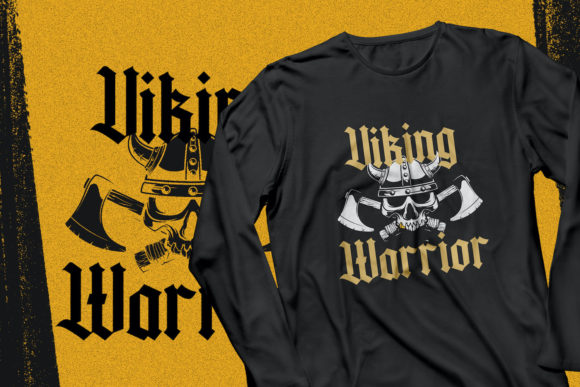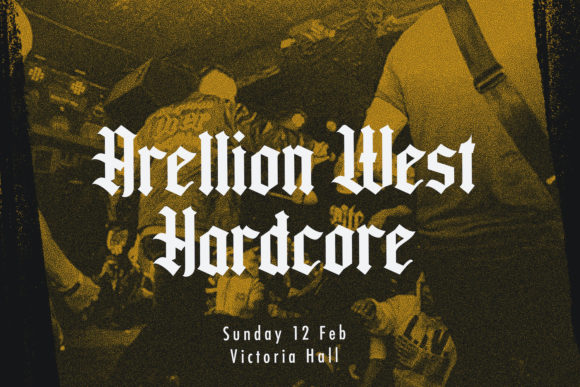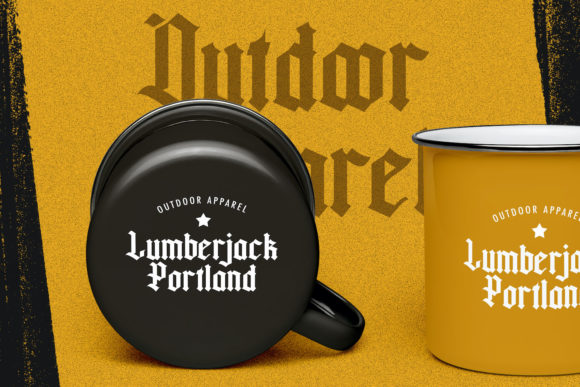
Introduction to Rogfus Sejatty Font
Rogfus Sejatty is an incredibly authentic and daring blackletter font.
Add this font to your favorite creative ideas and notice how it makes them stand out .
Key Features of Rogfus Sejatty Font
Why Choose Rogfus Sejatty Font?
Rogfus Sejatty Font offers exceptional quality and versatility, making it a valuable addition to your design toolkit. Whether you’re creating for personal projects or commercial use, Rogfus Sejatty Font delivers professional results.